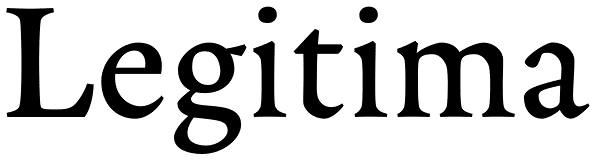
Legitima
Legitima is a text font family inspired by the types found in the 3rd edition of the Italian book La Cicceide Legitima, printed in 1695. Its weight and x-height, optimized for 10 point-size, make it an ideal choice for book design and anything with...
Legitima
Legitima Italic